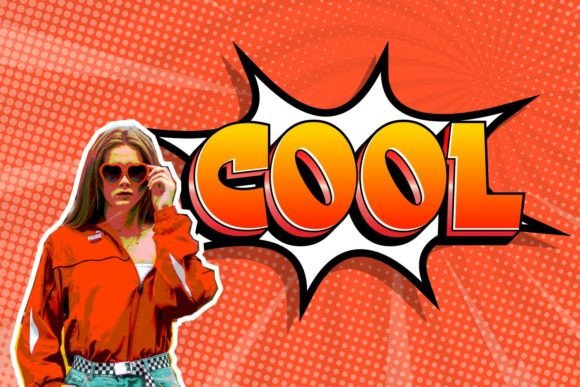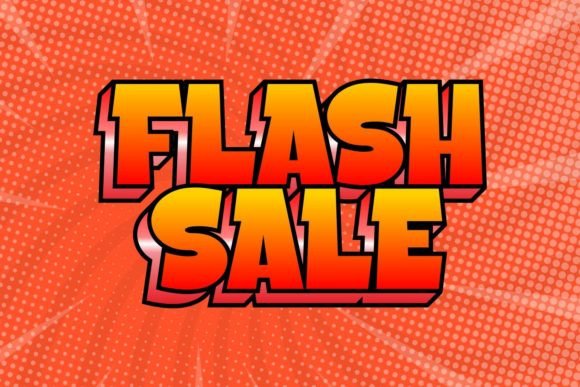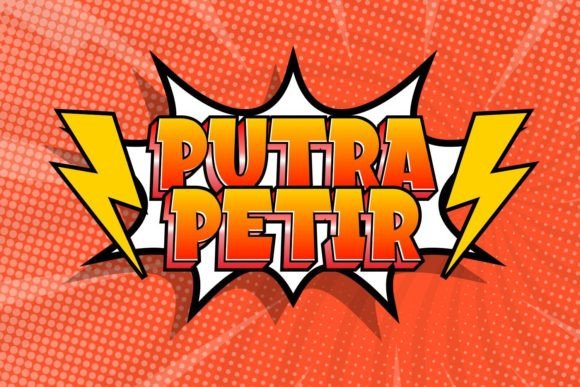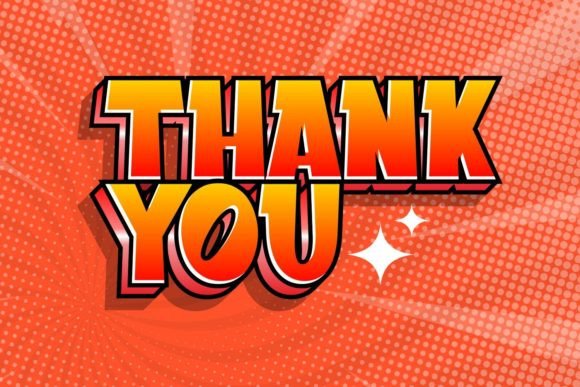
Get Ready to Make a Bang with Boom Besti Font!
Remember when you were a kid, and you’d spend hours poring over your favorite children’s books, mesmerized by the colorful illustrations and whimsical fonts? For designers, capturing that same sense of wonder and magic is a constant goal. And that’s exactly where Boom Besti Font comes in – a fun and chunky display font designed to make children’s themed designs truly stand out.
Whether you’re working on a children’s book, a nursery decor project, or a fun social media campaign, Boom Besti Font is the perfect tool to add a playful touch. Its unique design makes it instantly recognizable and memorable, and its versatility means you can use it in a wide range of creative projects. As a designer, you know how valuable a great font can be – and Boom Besti Font is definitely one to add to your arsenal.
Boom Besti Font Key Features
- Font Family: Boom Besti is a unique, hand-drawn font designed to evoke a sense of playfulness and energy.
- Character Set: Includes a comprehensive set of characters, including uppercase and lowercase letters, numbers, and punctuation marks.
- Size: Designed to be highly legible at various font sizes, with optimal readability at 12-24 points.
- Resolution: Suitable for use at high resolutions (up to 300 DPI), making it ideal for print materials, signage, and digital displays.
- Unique Characteristics: Features a bold, expressive style with varying line widths and irregular shapes, giving it a hand-drawn feel.
Designer Review: Boom Besti Font
I recently had the chance to work with the Boom Besti Font, and here’s my honest take on this unique typeface.
- The font’s bold and playful personality is infectious, making it perfect for creative projects that need a boost of energy.
- Its wide range of weights and styles allows for versatility, from titles and headings to body text and display fonts.
- The font’s quirky, hand-drawn feel adds a touch of whimsy and character to any design, making it stand out from more generic sans-serif fonts.
- The font may not be the best choice for professional or corporate branding due to its playful, unrefined aesthetic.
- The font’s irregular letterforms and varying stroke widths can make it challenging to read at smaller font sizes or in dense text blocks.
Overall, I found the Boom Besti Font to be a fun and creative addition to my design toolkit. While it may not be suitable for every project, it’s a great choice for those looking to add a touch of personality and whimsy to their work.
Boom Besti Font is ideal for creating bold and playful designs, such as:
- Children’s book covers
- Party invitations